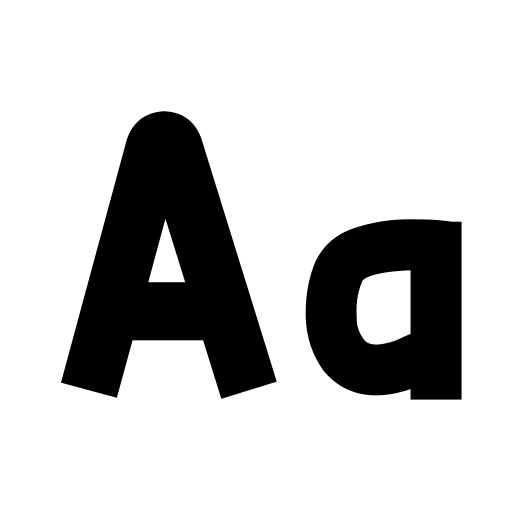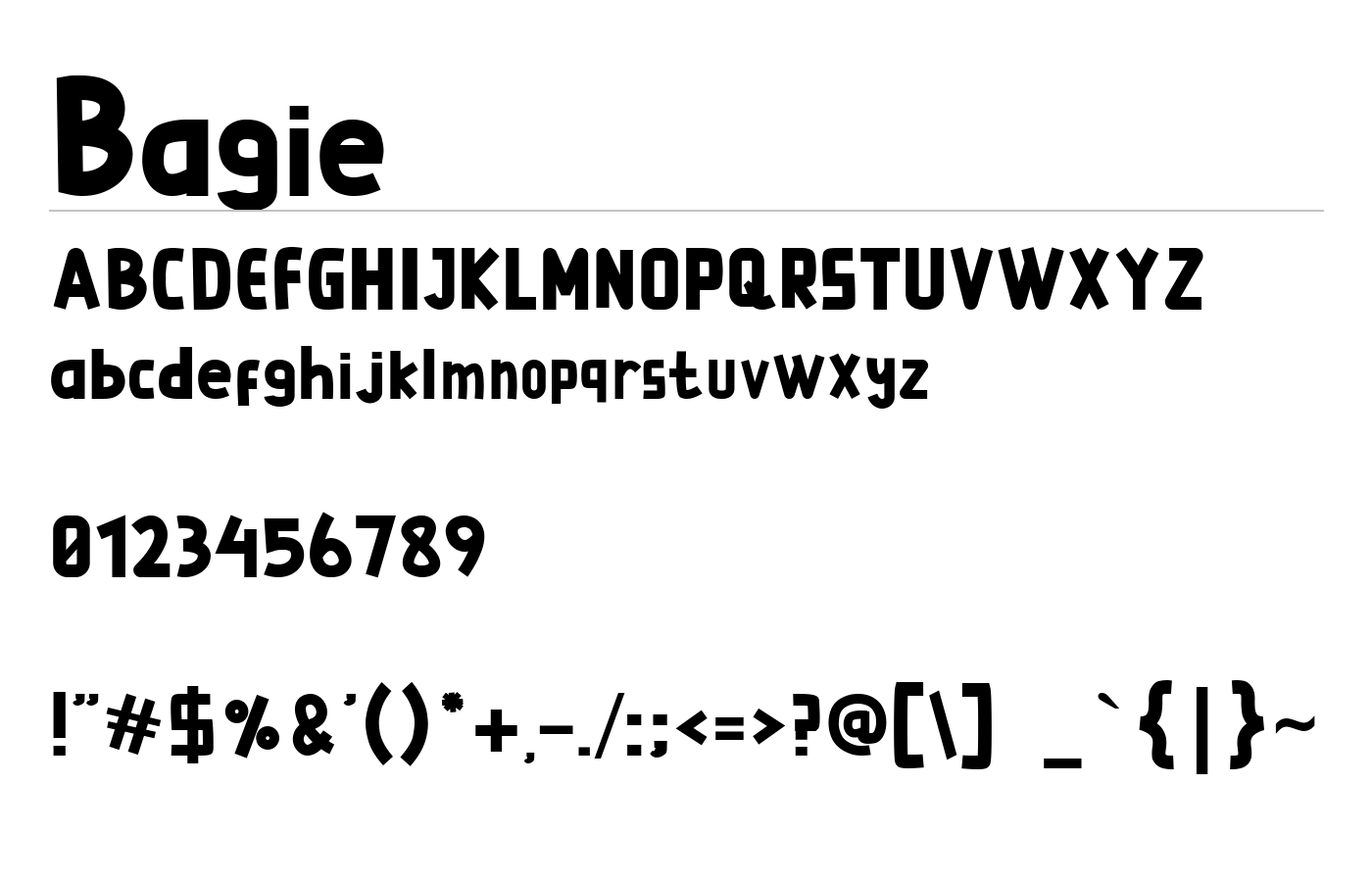
Bagie is a bold, playful sans serif font with a quirky, slightly irregular character shape that adds personality and charm. Its wide, chunky letterforms with moderate contrast make it highly legible and ideal for casual, friendly designs such as children’s books, logos, and eye-catching headlines. This font’s unique style and energetic feel work well for brands seeking a fun, approachable, and modern vibe.
Bagie Font
About Bagie Font